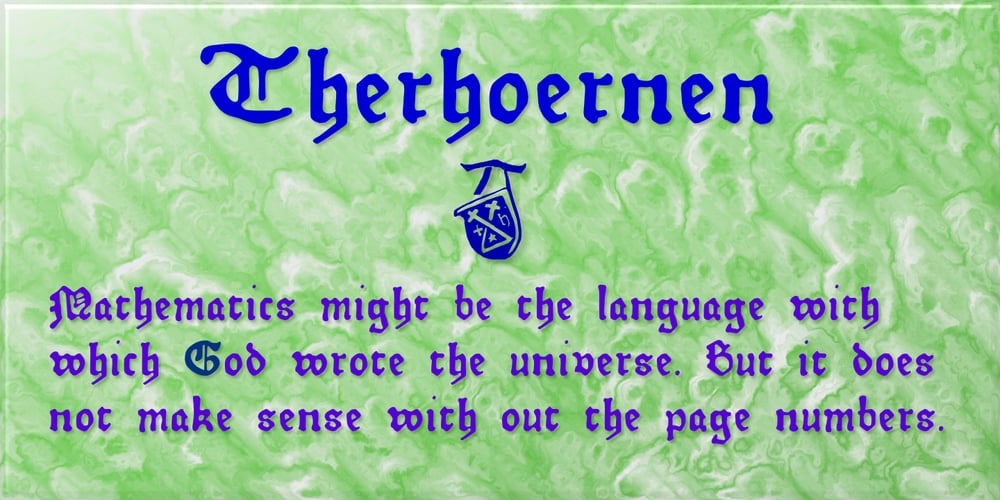
Therhoernen Font Family was designed by Shane Brandes and published by Proportional Lime. Therhoernen contains 2 styles and family package options. Arnold Therhoernen. (Arnoldus ther Hornen, Drucker des Dictys , Arnold ter Hoernen, Arnold ther Hoernen, Arnoldus TherHornen.) Who was this guy? He was a printer active in the city of Cologne, having graduating from the university there. He learned his craft under Ulrich Zell. He printed books from 1470 to 1482 when the plague carried him off. Was he just another printer of the era? No, he brought out the first edition of the “Fasciculus temporum” (The most popular work by a living author at that time.) And he was the first to use both a title page and page numbers. His page numbers, an idea probably suggested to him by Werner Rolevinck, were interesting in that they were centered half way down the page on the outer margin and were set in Roman Numerals.